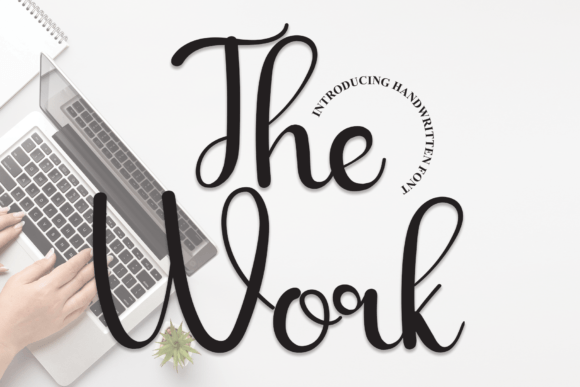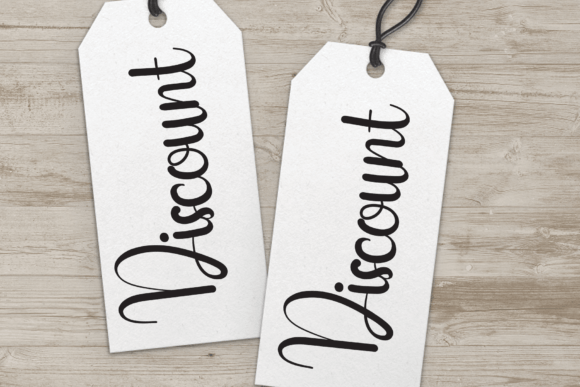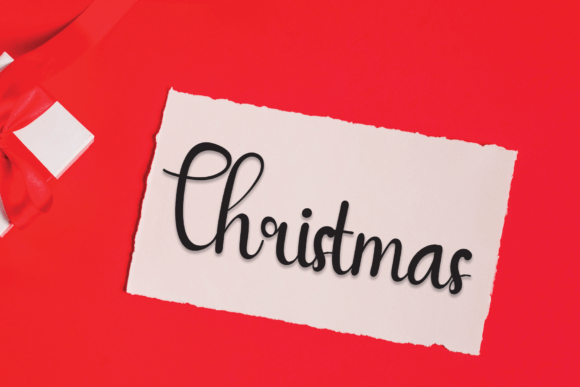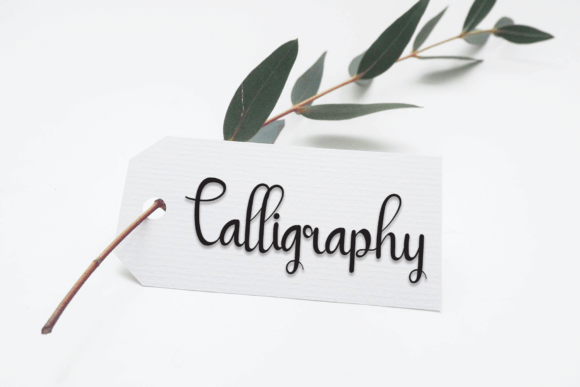
Script Fonts The Work Font 0 176 FacebookTwitterPinterestWhatsApp 1 of 5 The Work Font Poster 2... The Work Font Poster 3... The Work Font Poster 4... The Work Font Poster 5... About The Work Font This is a fun and friendly handwritten font. Whether you’re using it for crafts, digital design, presentations, or creating greeting cards, this font has the potential to become your favorite font, whatever the occasion! DOWNLOAD NOW